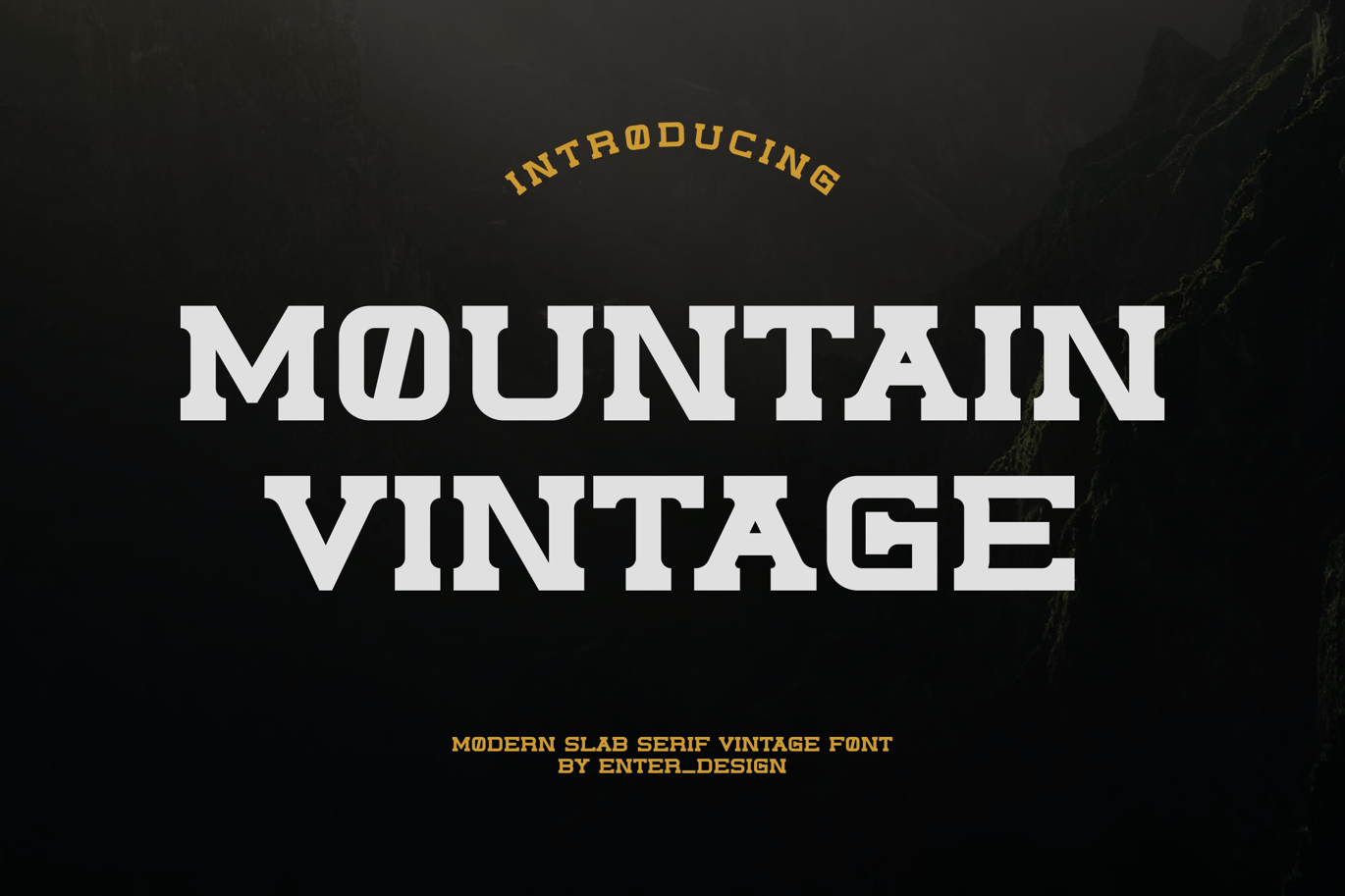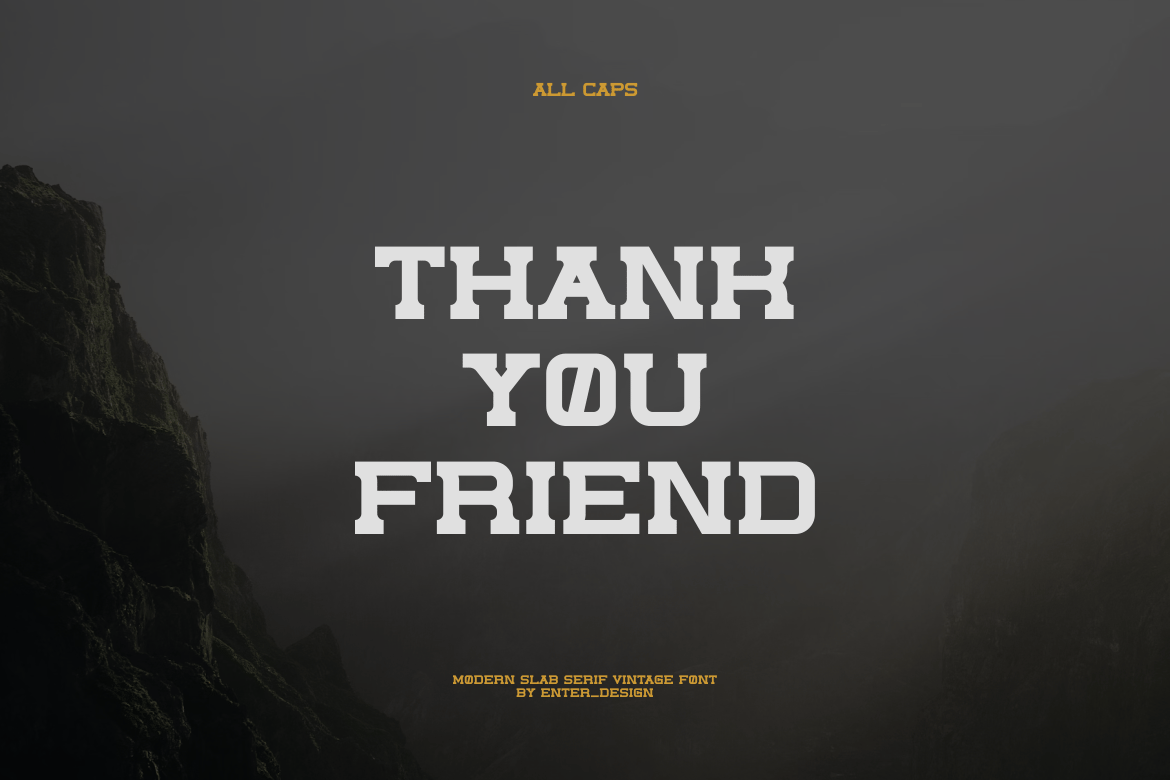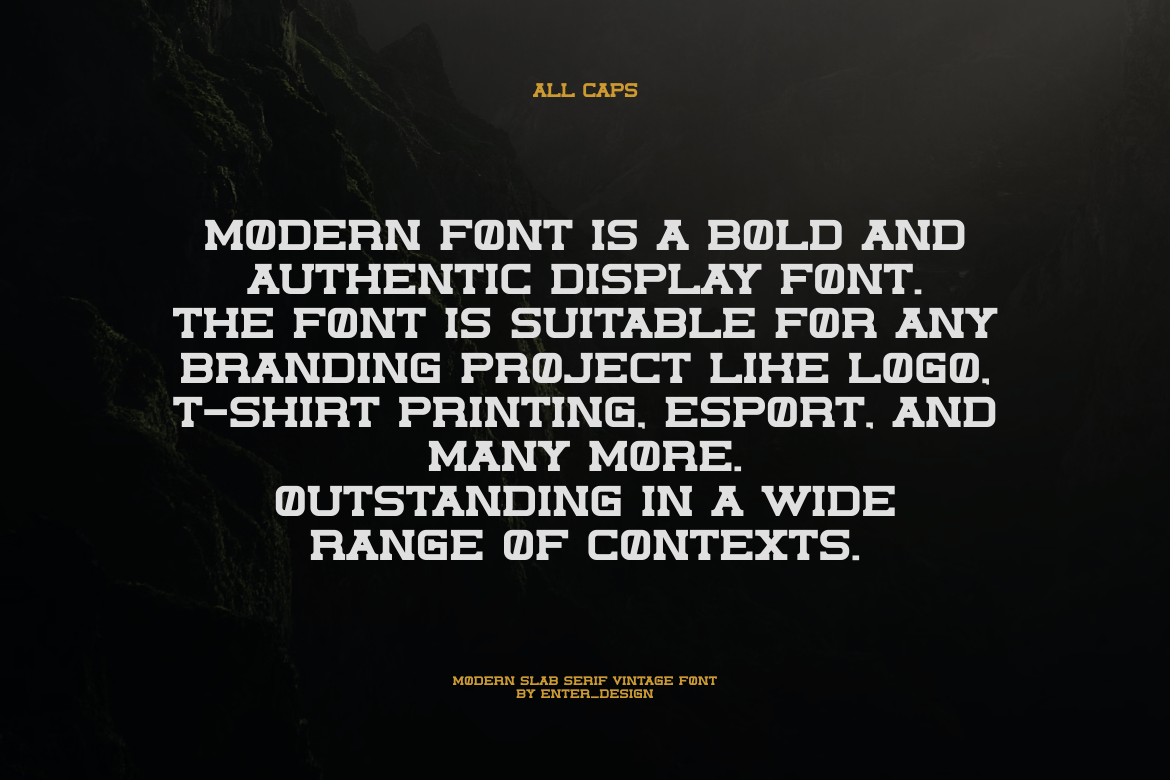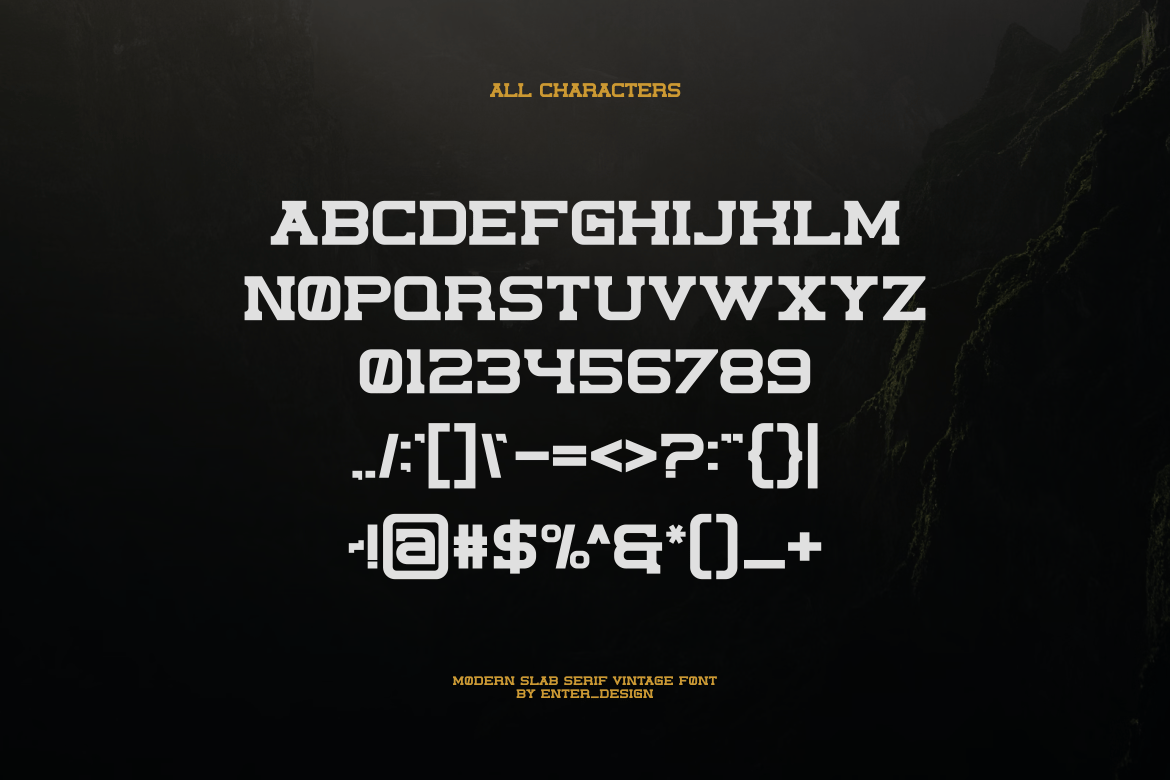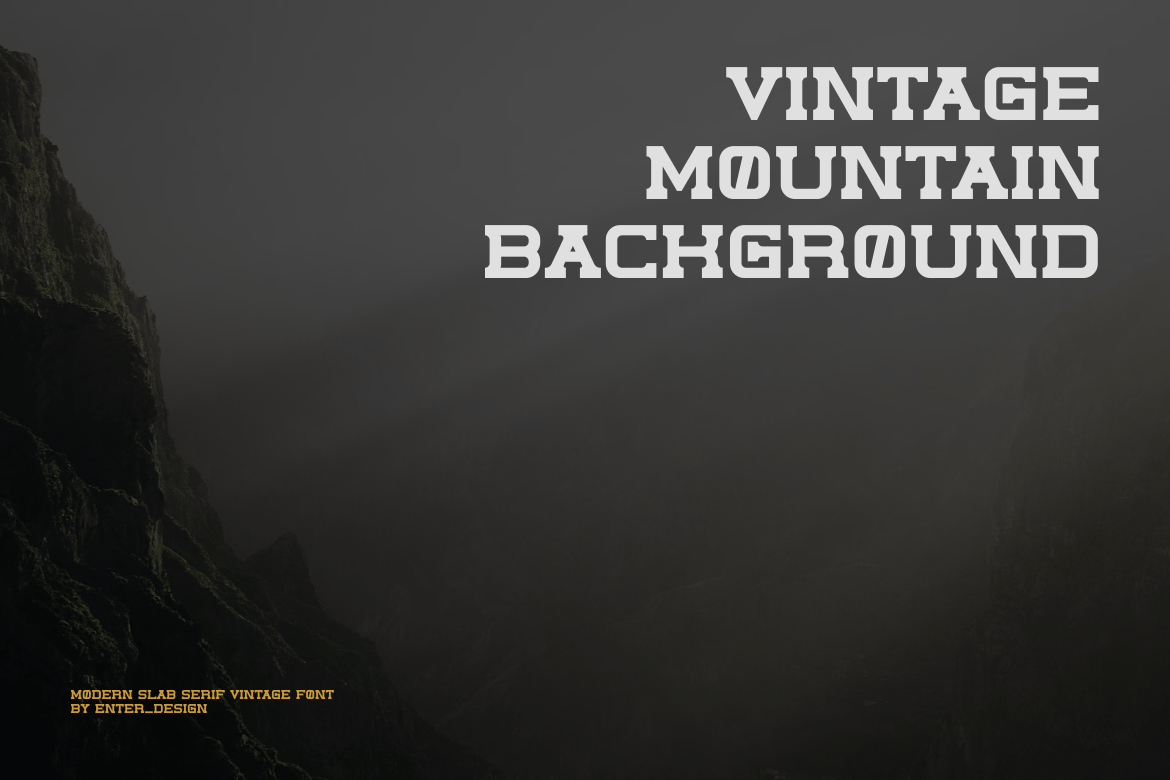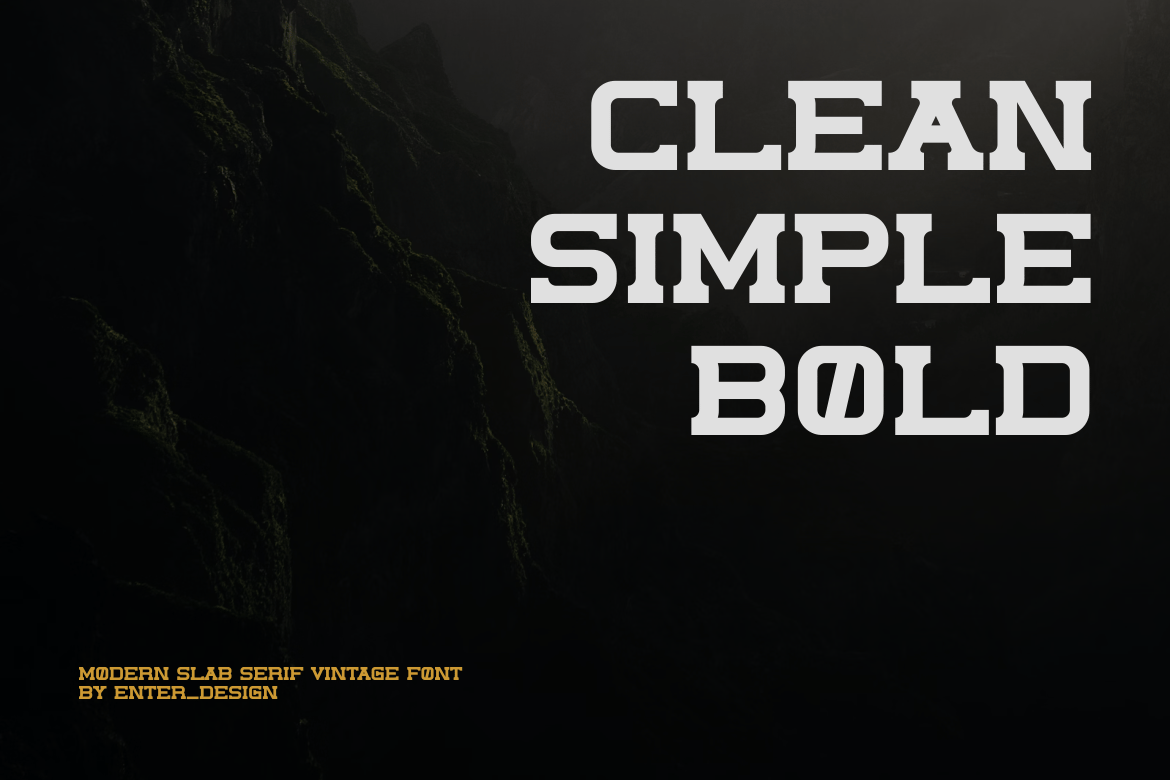
Mountain Vintage Font
Introducing our new product Mountain Vintage Font – Modern Font
Mountain Vintage Font – Modern Font is a bold and authentic display font. The font is suitable for any branding project like logo, esport, and many more. outstanding in a wide range of contexts.